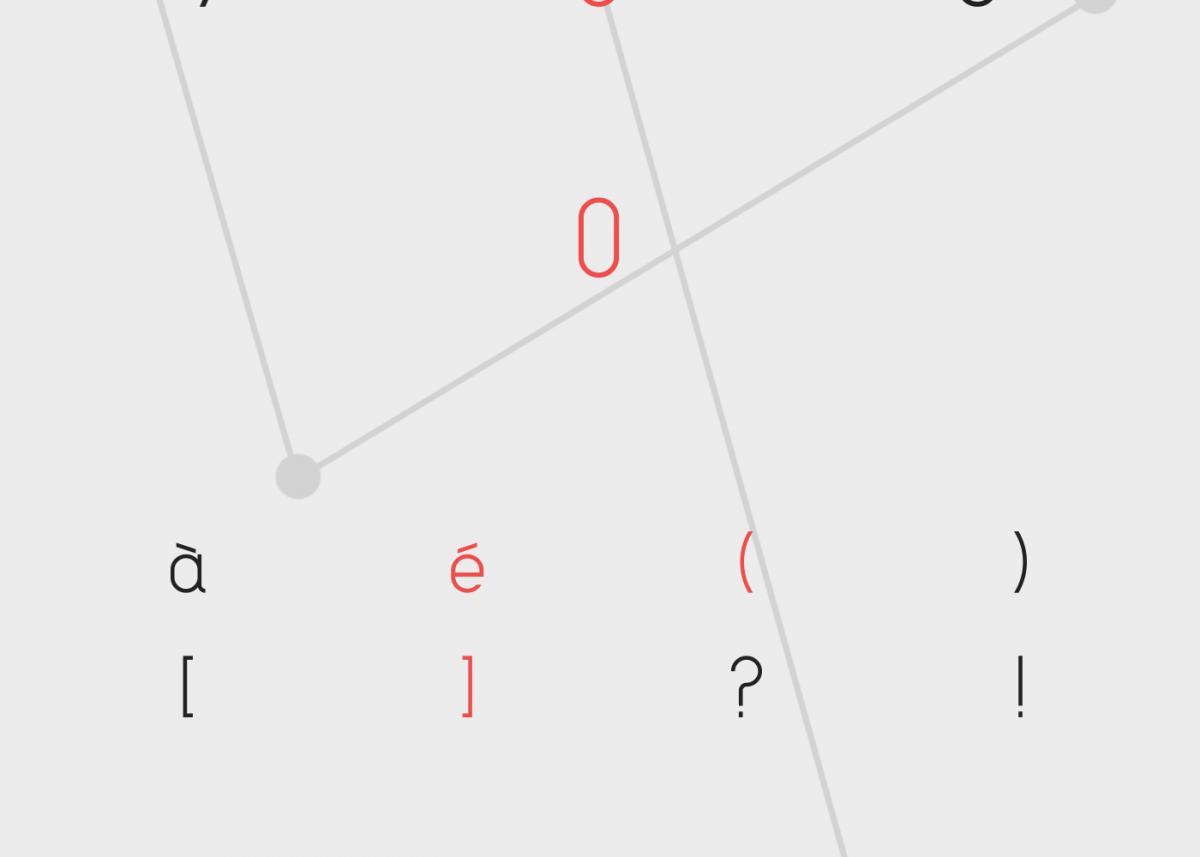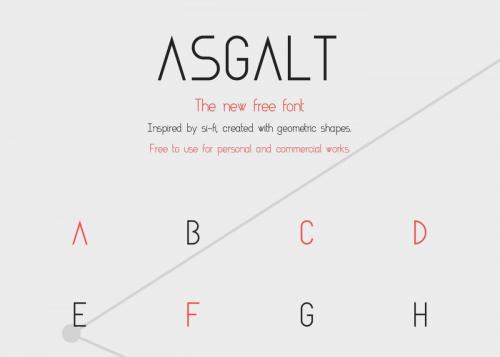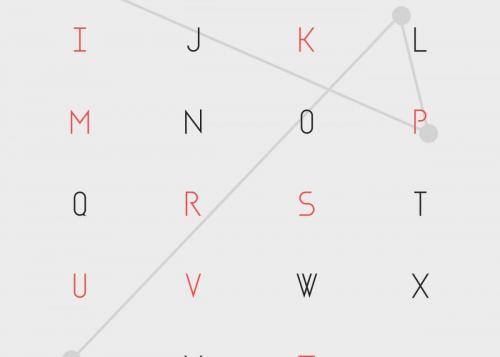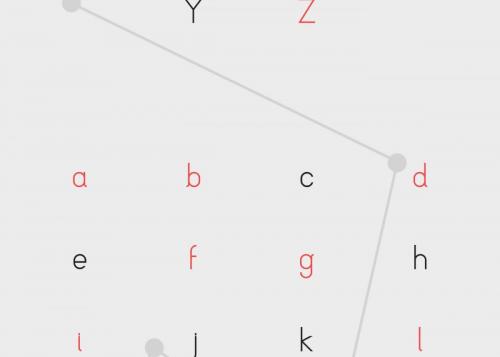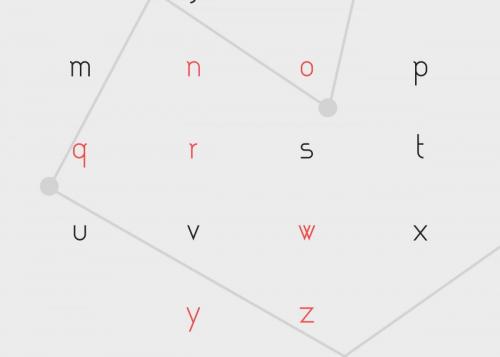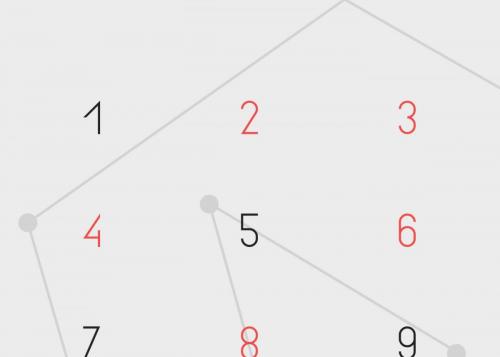
Asgalt Typeface is a clean, capsule-like and geometric typeface. The capsule-form made it easier to set for long form text, and thin. This type of writing is perfect for logos, fashion, stationery, magazines, menus, books, invitations, greeting cards, packaging, labels, apparel, marketing, business cards, etc.
- Designer: Remi Lagast